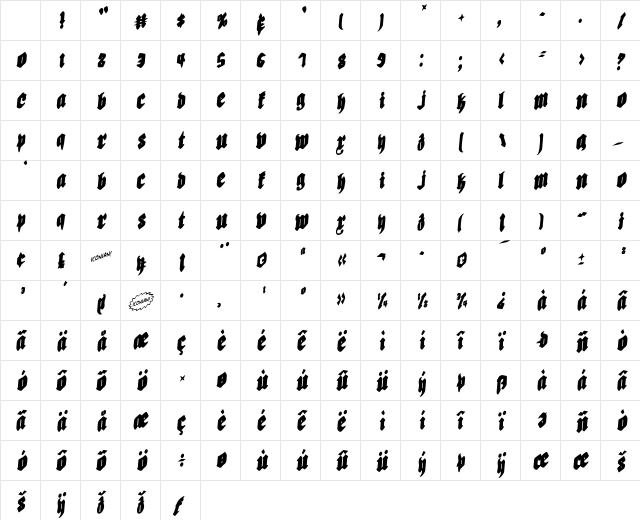
Biergen Rotalic is a composed and adaptable typeface that performs quietly and consistently across a wide range of design contexts. Its narrow stance lets it pack a punch even in space-constrained designs.